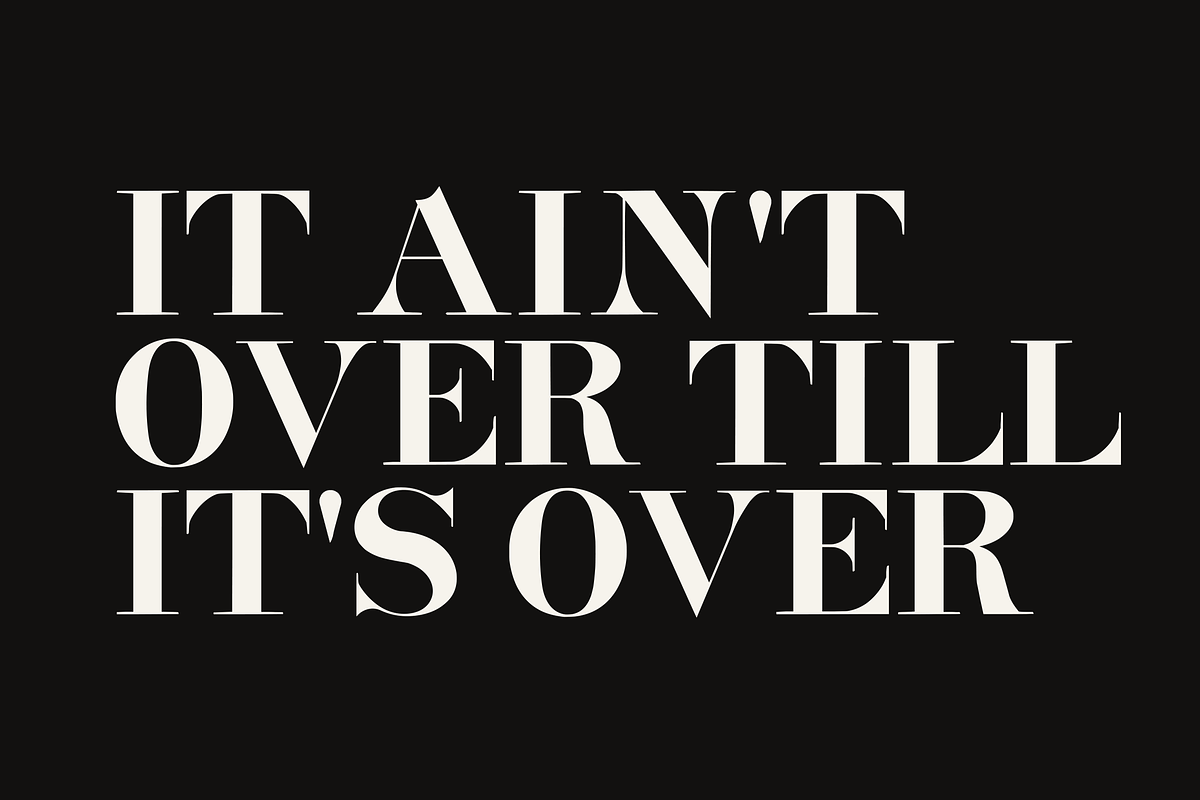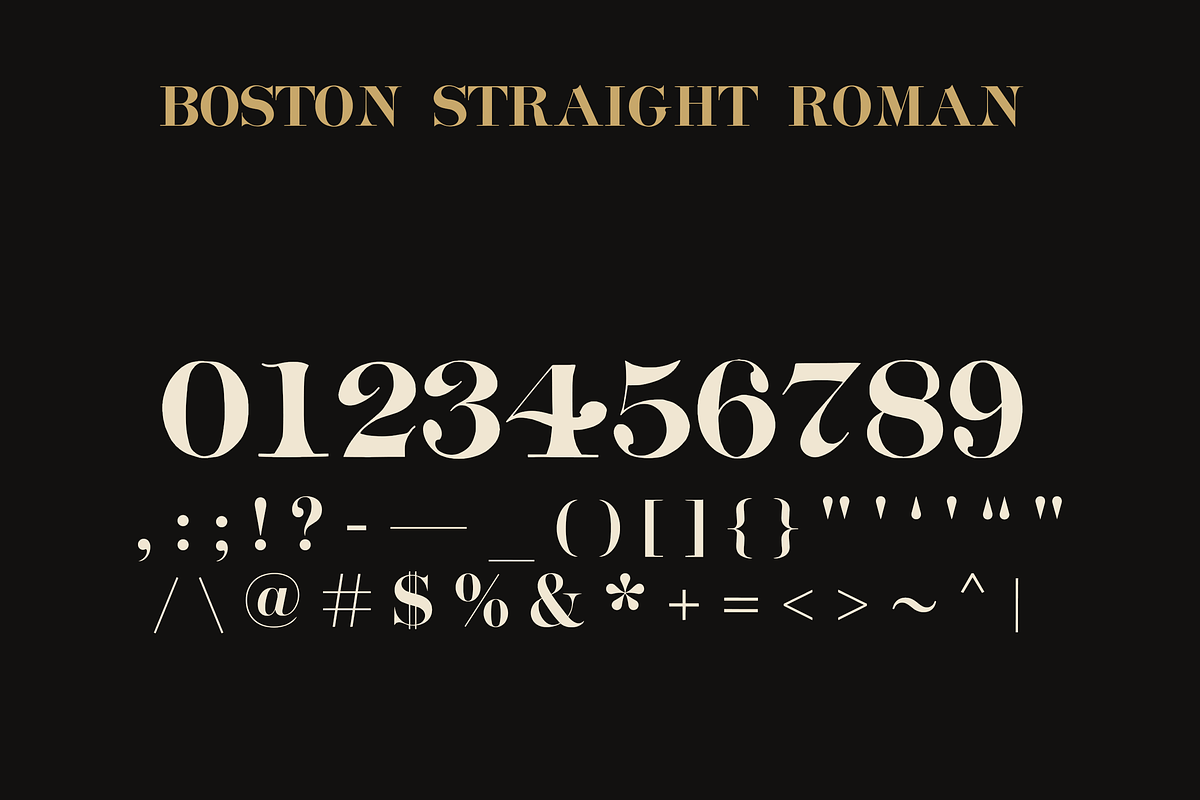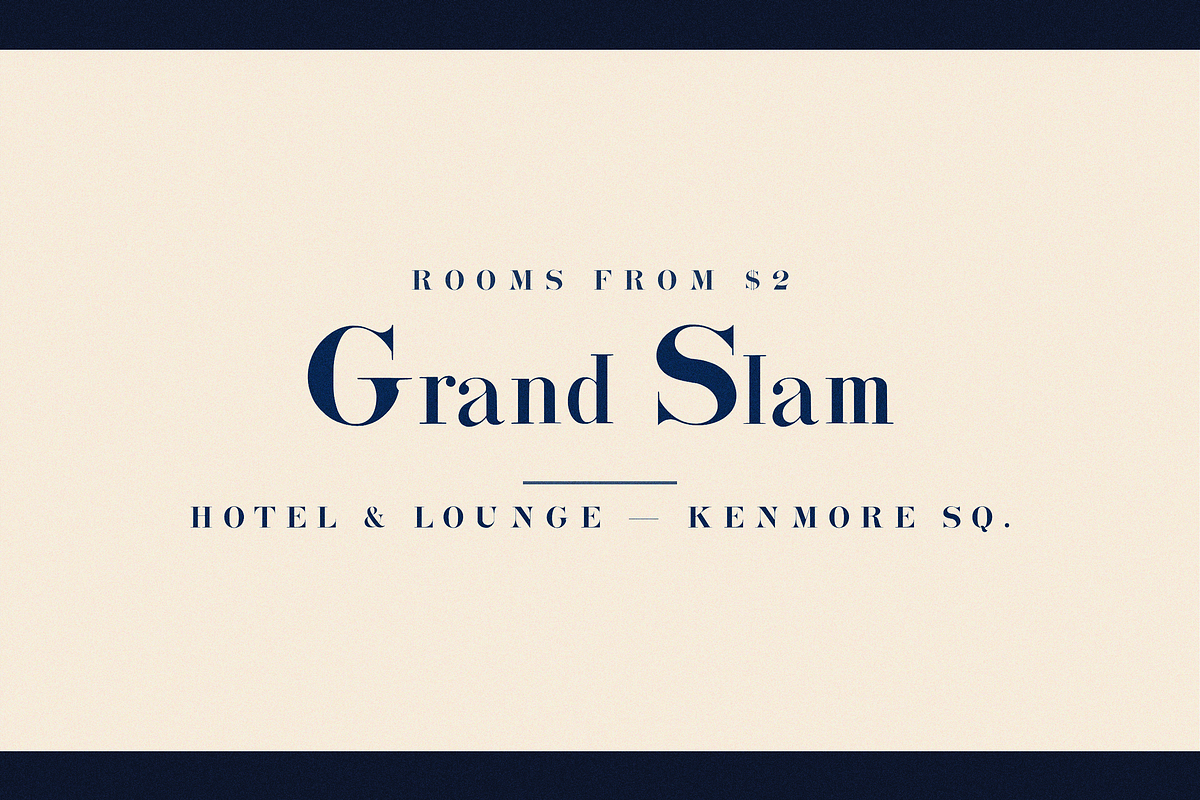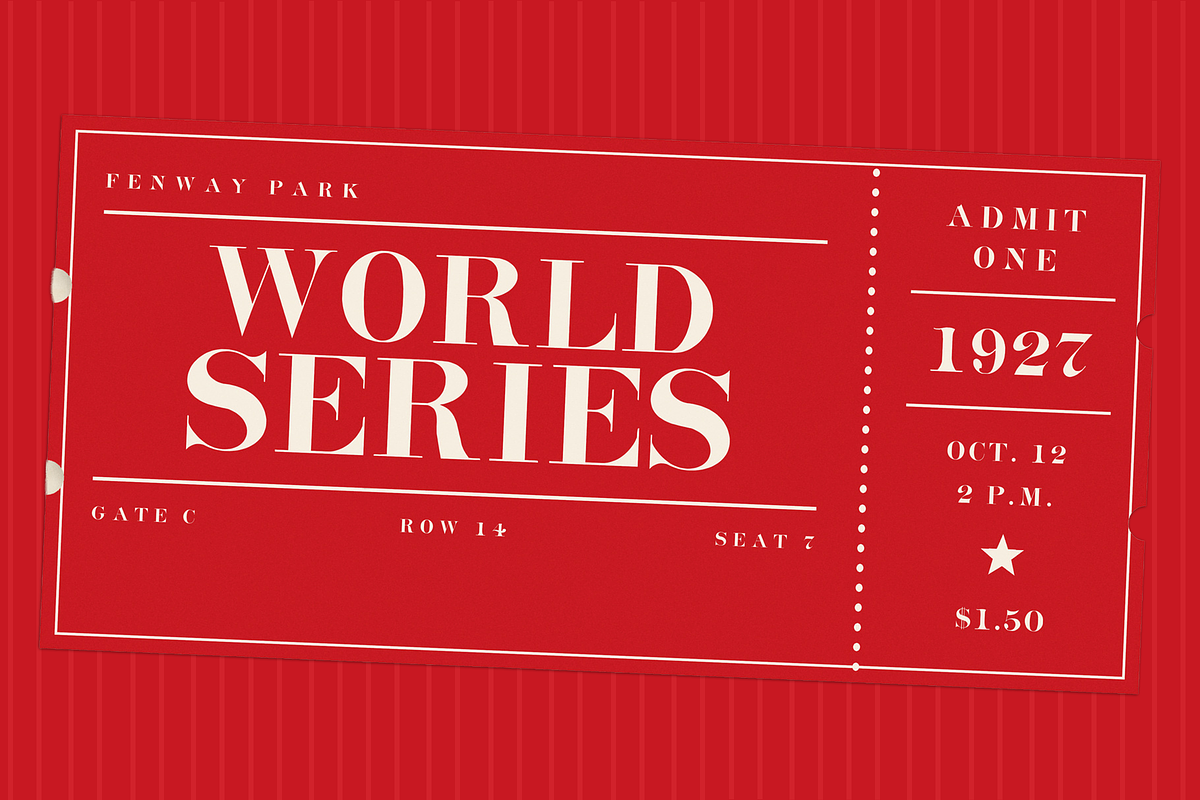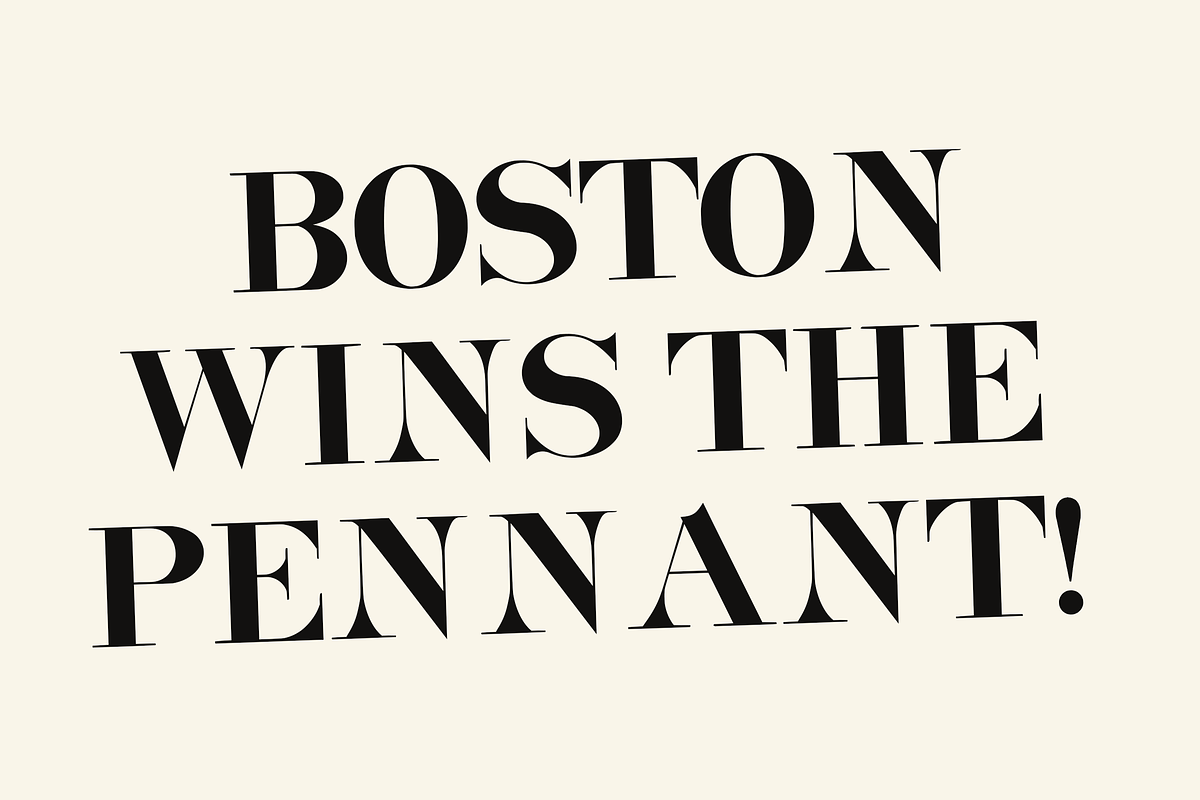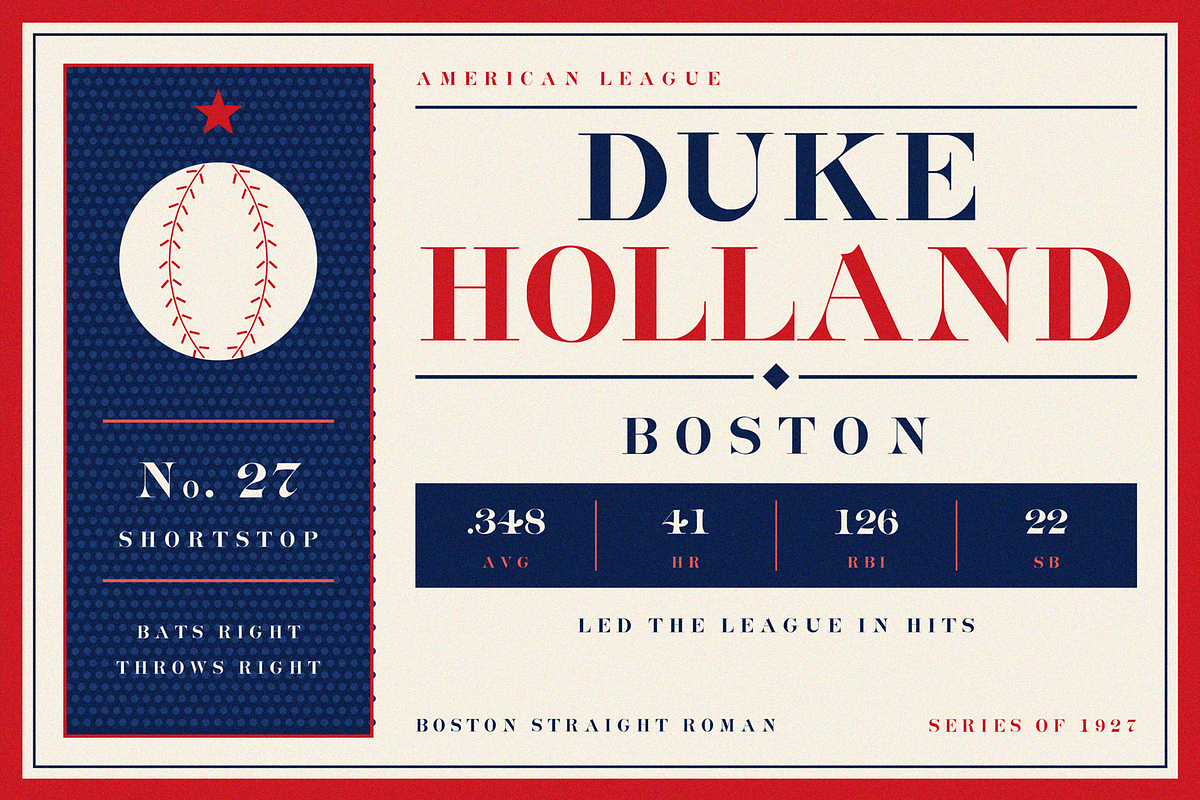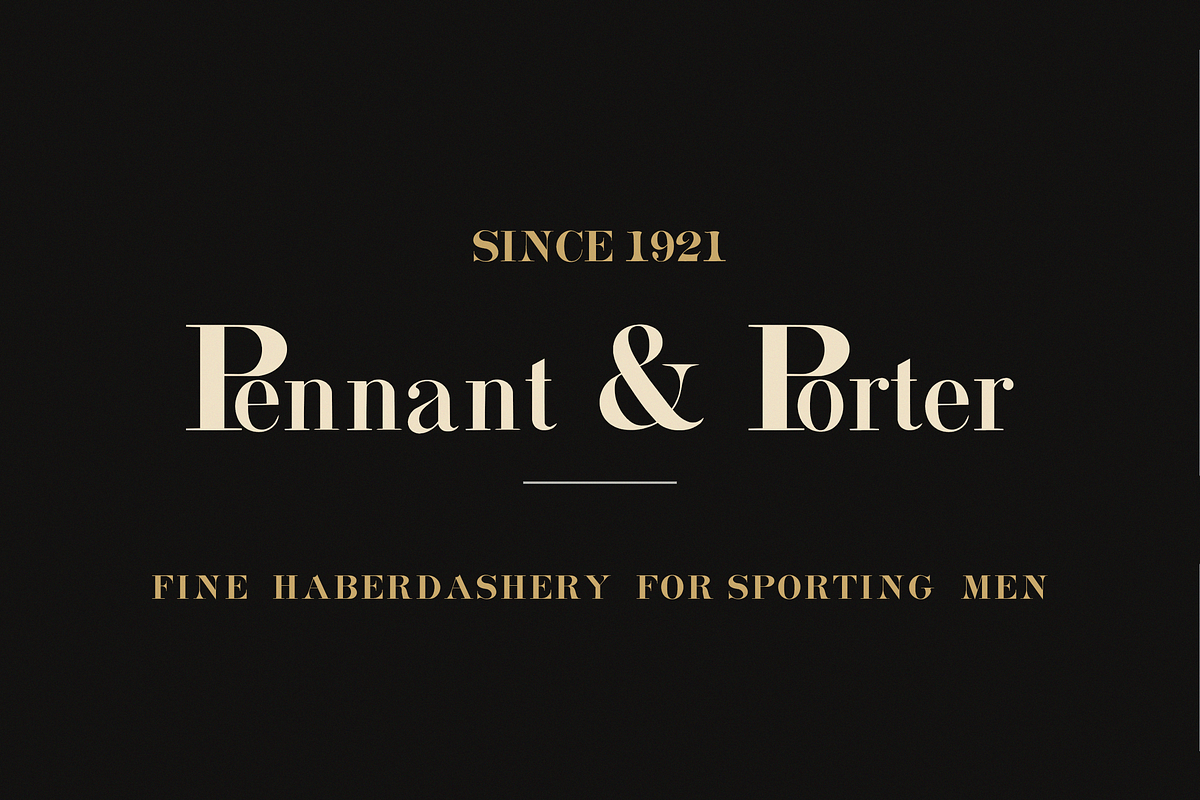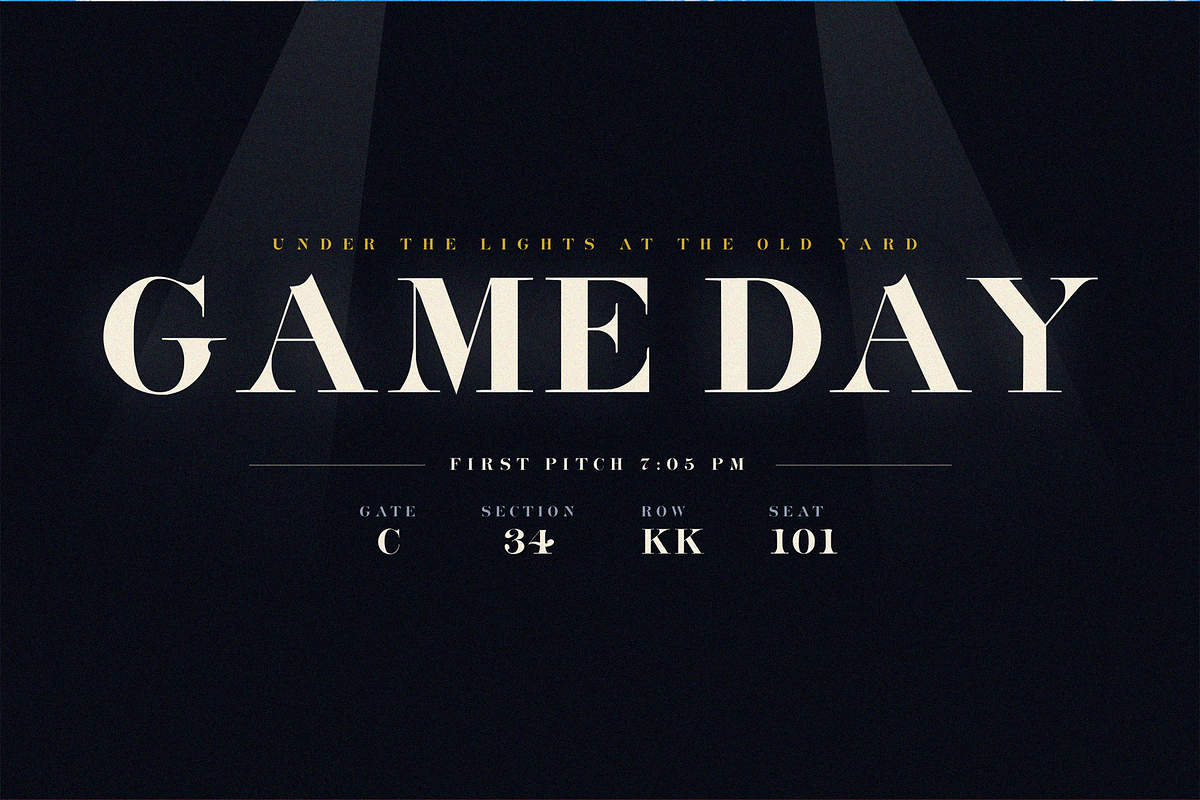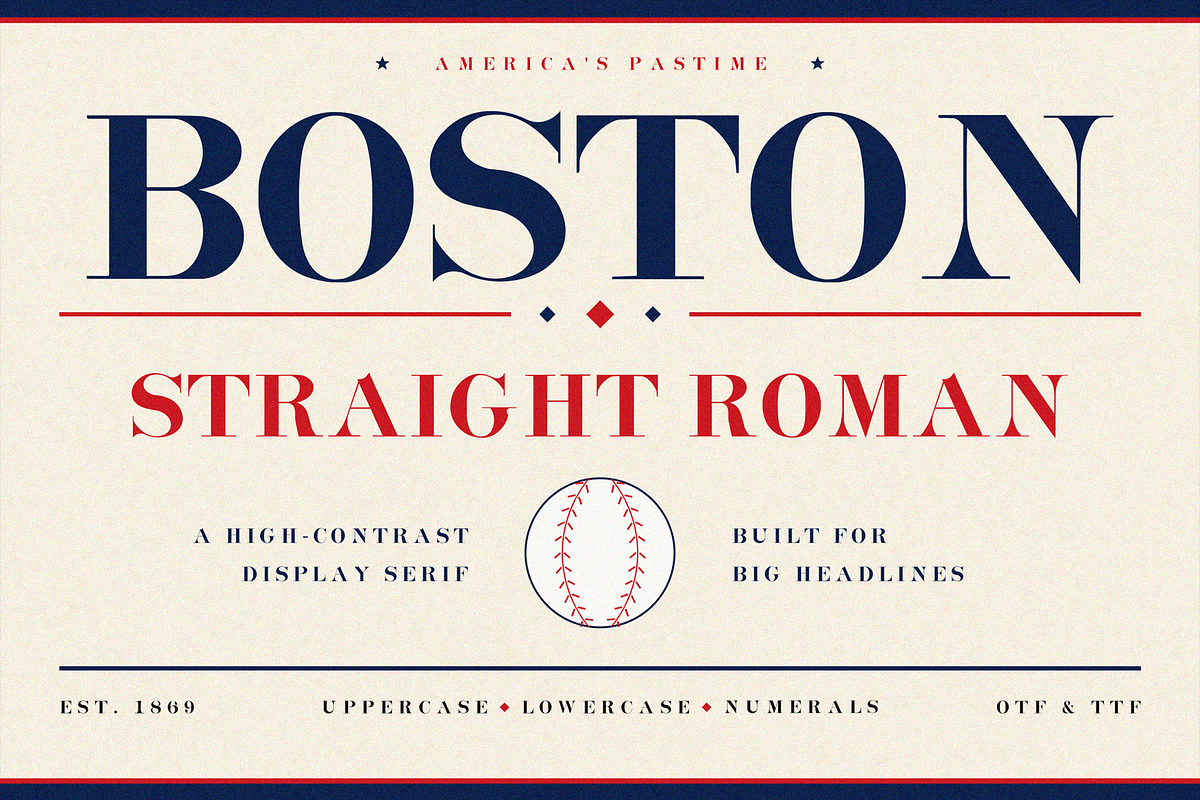
Boston Straight Roman – Display Font
Boston Straight Roman is a vintage display serif inspired by letterforms found in a 19th-century hand-lettering book.
What first caught my attention was the unusual construction of the letters, dramatic contrasts between thick and thin strokes, sharp serifs, narrow proportions, and small details that feel distinctly different from contemporary type. I wanted to preserve that old-world character while developing the idea into a font that could be used in modern design.
The result is Boston Straight Roman: an elegant, slightly theatrical serif with the spirit of antique hand lettering and printed ephemera.
Its personality naturally brings to mind old newspaper mastheads, hand-painted advertisements, vintage baseball programs, shop signs, book covers, packaging, and editorial typography. Some characters are intentionally more distinctive than others, giving words an irregular rhythm and personality that feels closer to historical lettering than a perfectly neutral modern serif.
The uppercase is bold, tall, and architectural, making it especially beautiful for oversized headlines, logos, posters, and tightly composed typography. The lowercase carries the same character into smaller titles, quotations, editorial details, and supporting text.
Rather than trying to make the original historical influence feel completely modern, I wanted to keep some of its strangeness, elegance, and charm.
Boston Straight Roman works best when it is allowed to be noticed, set large, given space, or used as the central element of a design.
Vintage branding, editorial design, newspaper-inspired layouts, magazine covers, baseball and sports graphics, posters, packaging, book covers, logos, restaurant identities, labels, invitations, fashion editorials, album artwork, social media graphics, and historical-inspired projects.